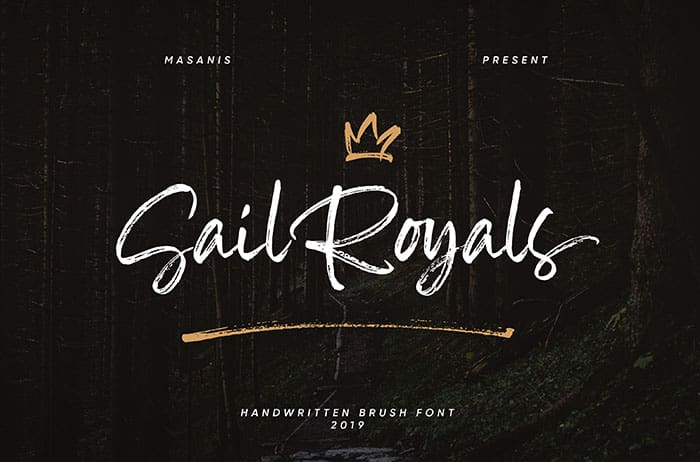
Sail Royals Brush Font
Sail royals brush font made with a brush pen on real paper, Sail Royals is a one-of-a-kind handwritten font. Its signature style is perfect for adding an authentic spark to any design project. Designed this font by Mas Anis. You can also search more freeĀ Brush Fonts. Thanks!